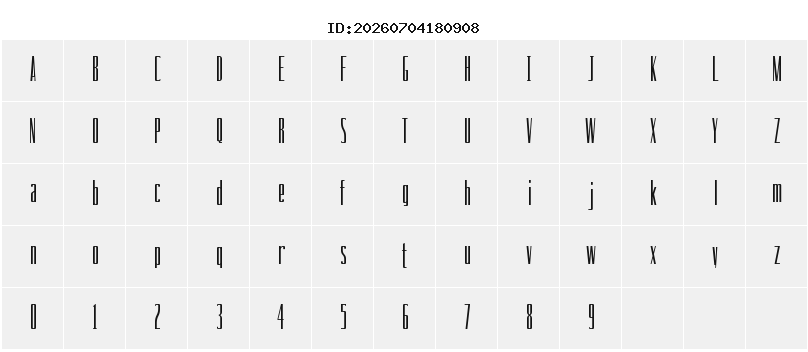
Drinking Preview
• Font Name: Drinking
• Full Font Name: Drinking
• Version: Drinking:v1 - by ficod
About Drinking.ttf
Drinking.ttf is a modern, elegant sans-serif font designed for ultimate readability and visual harmony. Perfect for branding, headlines, web design, and print materials.